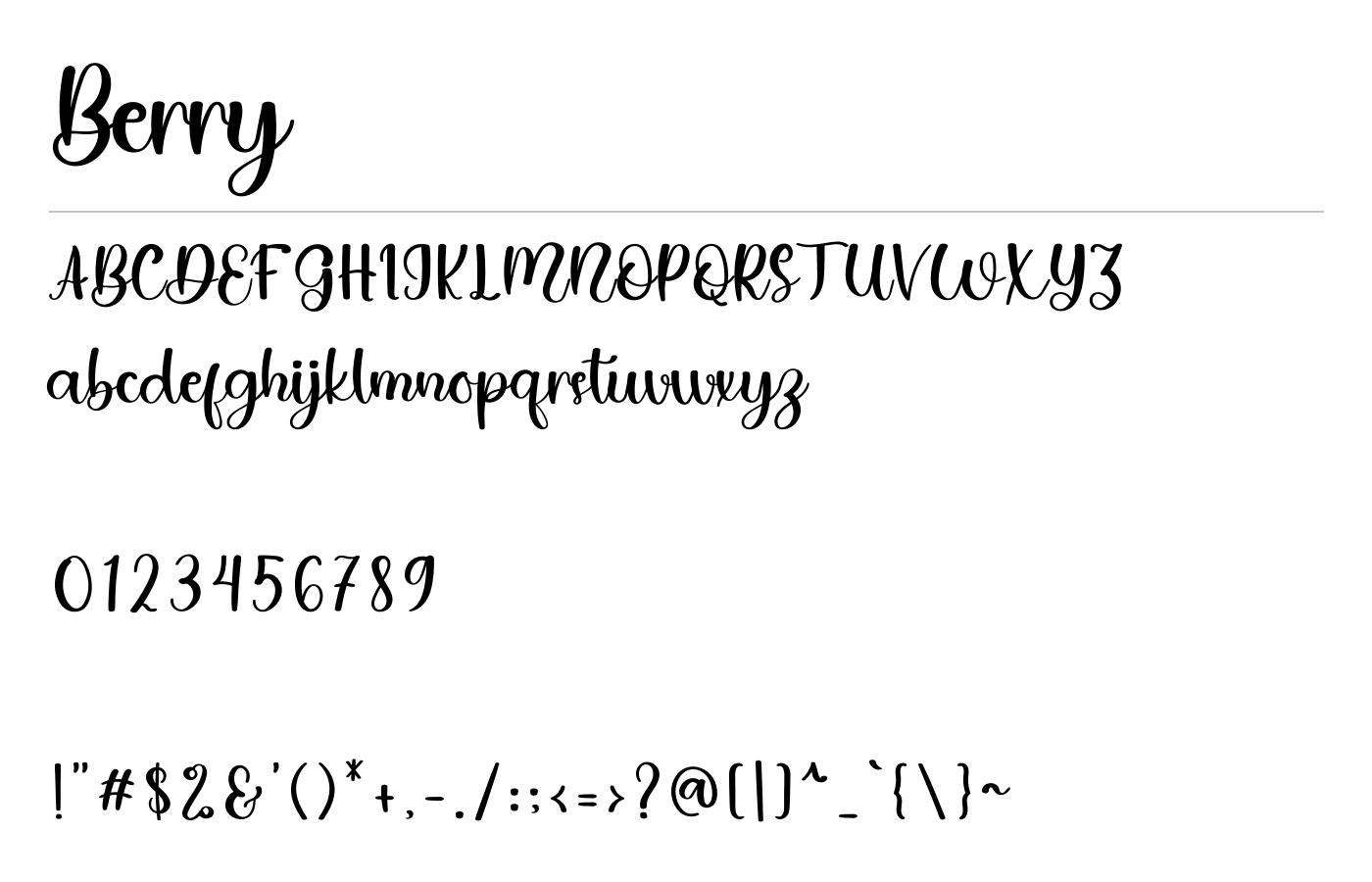
Berry Font is a playful and elegant script typeface with a hand-drawn feel, featuring lively swashes and smooth, flowing curves. Its moderate weight and balanced x-height make it ideal for creative branding, invitations, and decorative headlines, bringing a personal and whimsical touch to any design.
Berry Font
About Berry Font